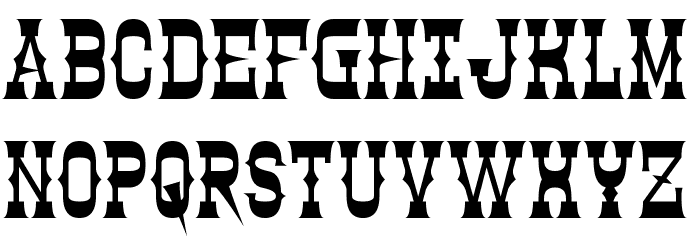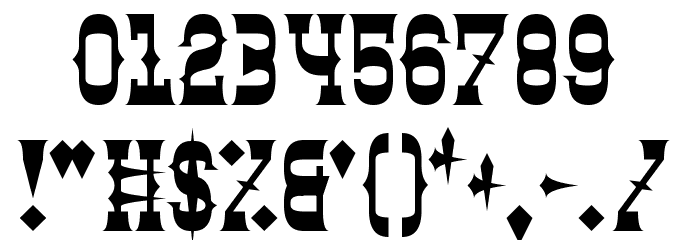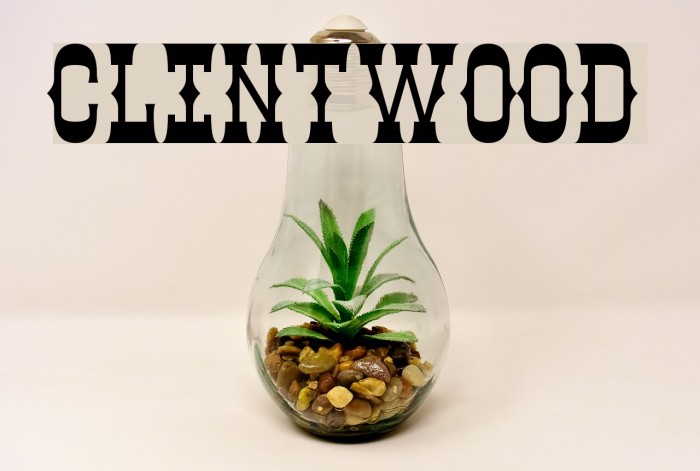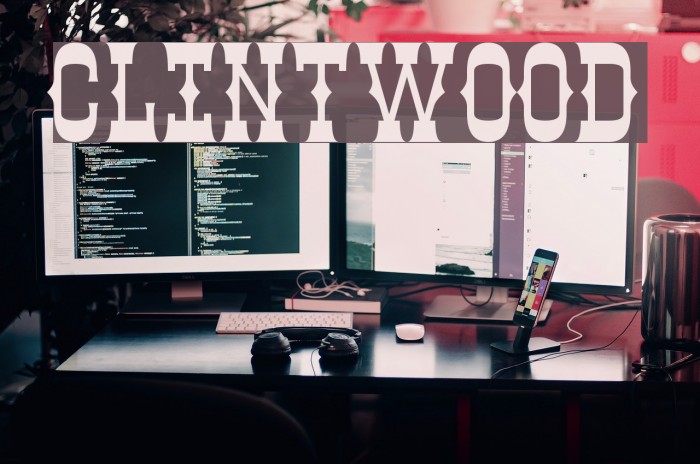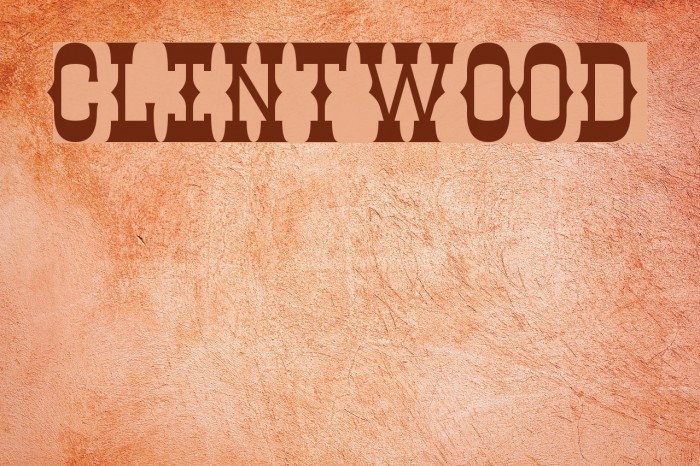
Clintwood Font
This font features a bold and striking design with a distinctly Western or vintage aesthetic. The characters are heavily stylized with sharp, angular serifs and unique cut-out details that give it a rugged, adventurous feel. The uppercase and lowercase letters maintain a consistent style, with the uppercase being particularly prominent and eye-catching. Numbers and special characters are equally bold, ensuring a cohesive look across all text elements. The font's unique style makes it ideal for projects that require a strong, impactful visual presence.
A bold, vintage-style font with sharp, angular serifs and unique cut-out details.
- Proposed Projects: Ideal for Western-themed posters, vintage branding, movie titles, or any project requiring a bold, adventurous aesthetic.
- Overall Style: Vintage